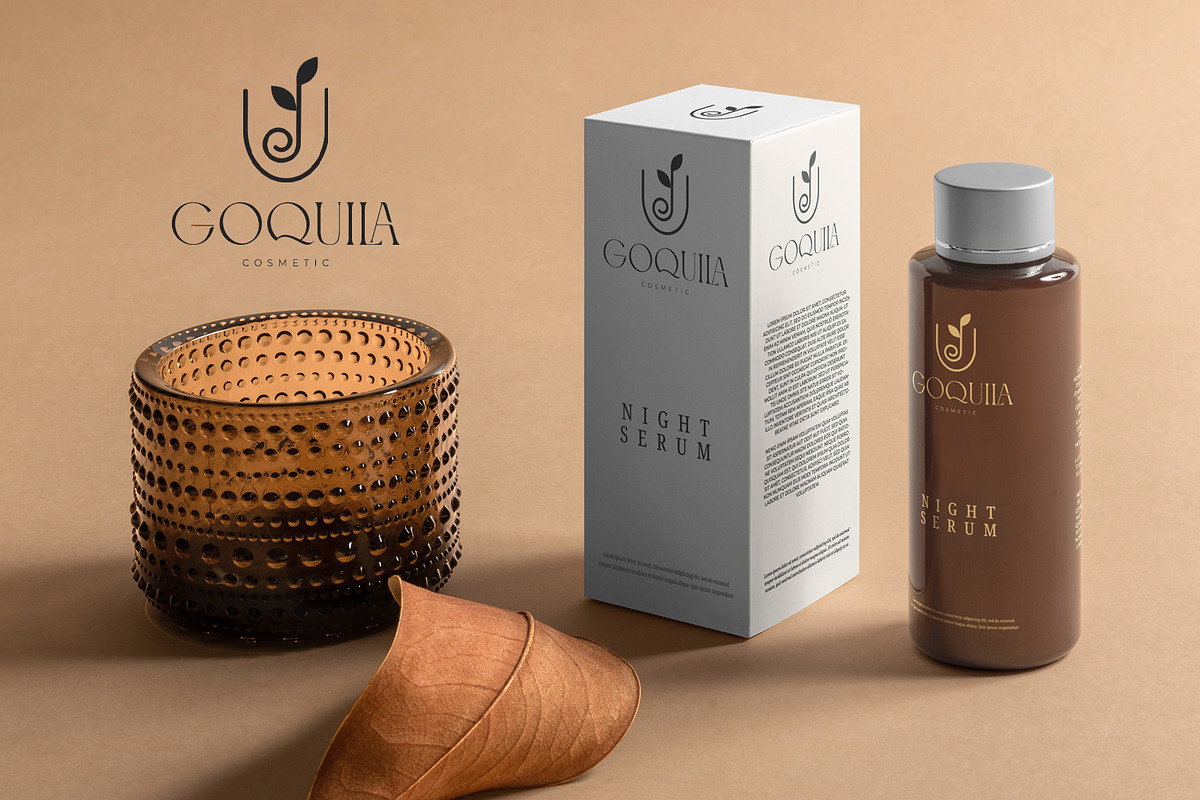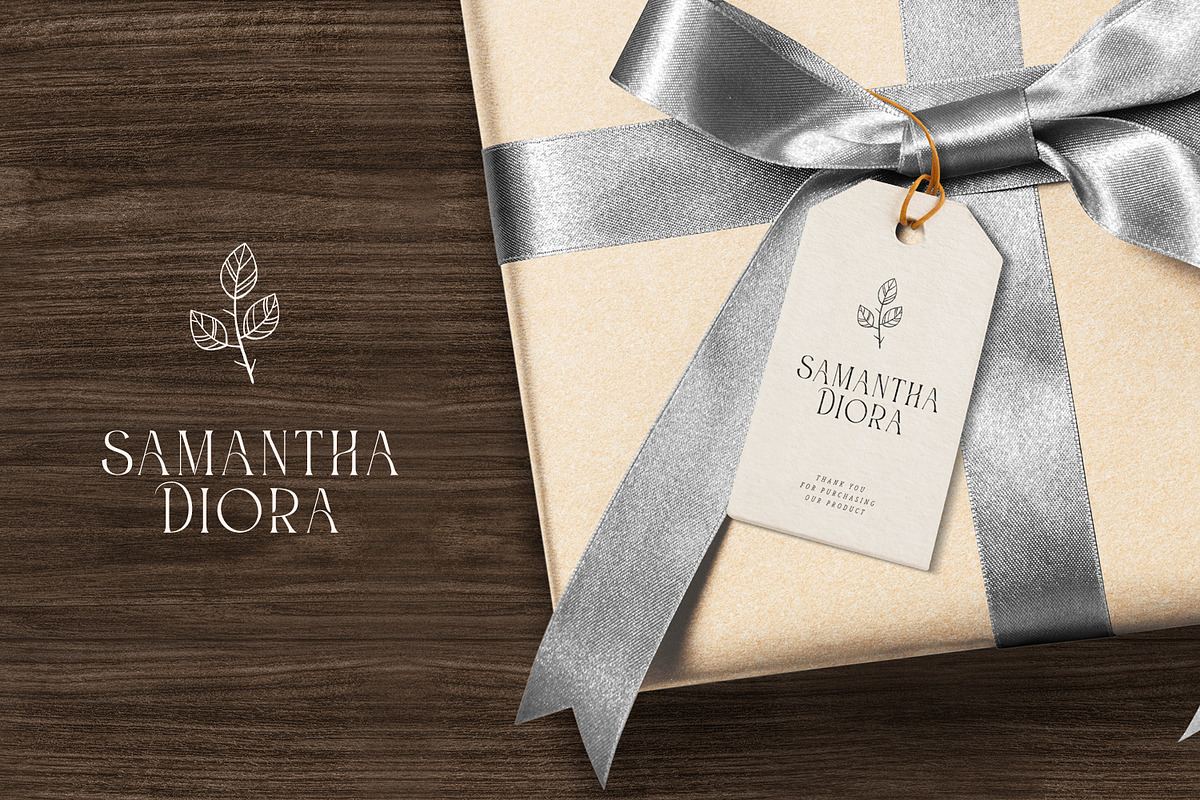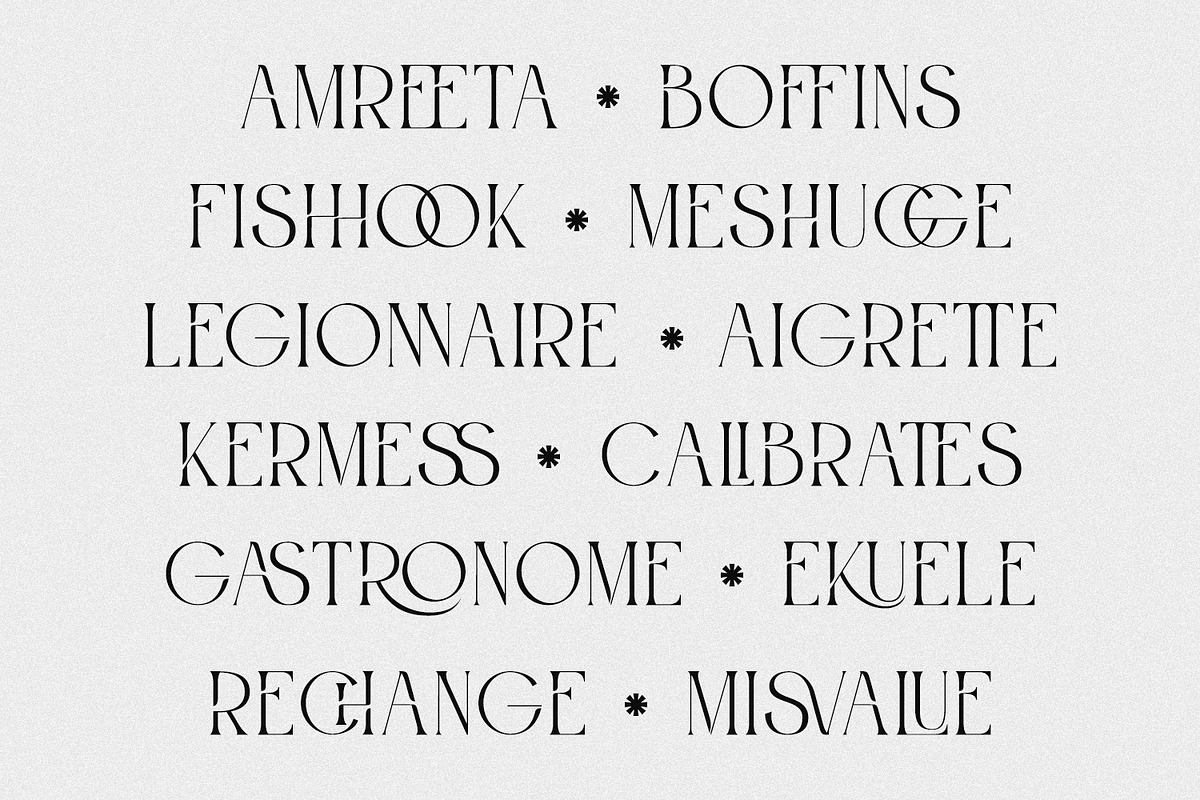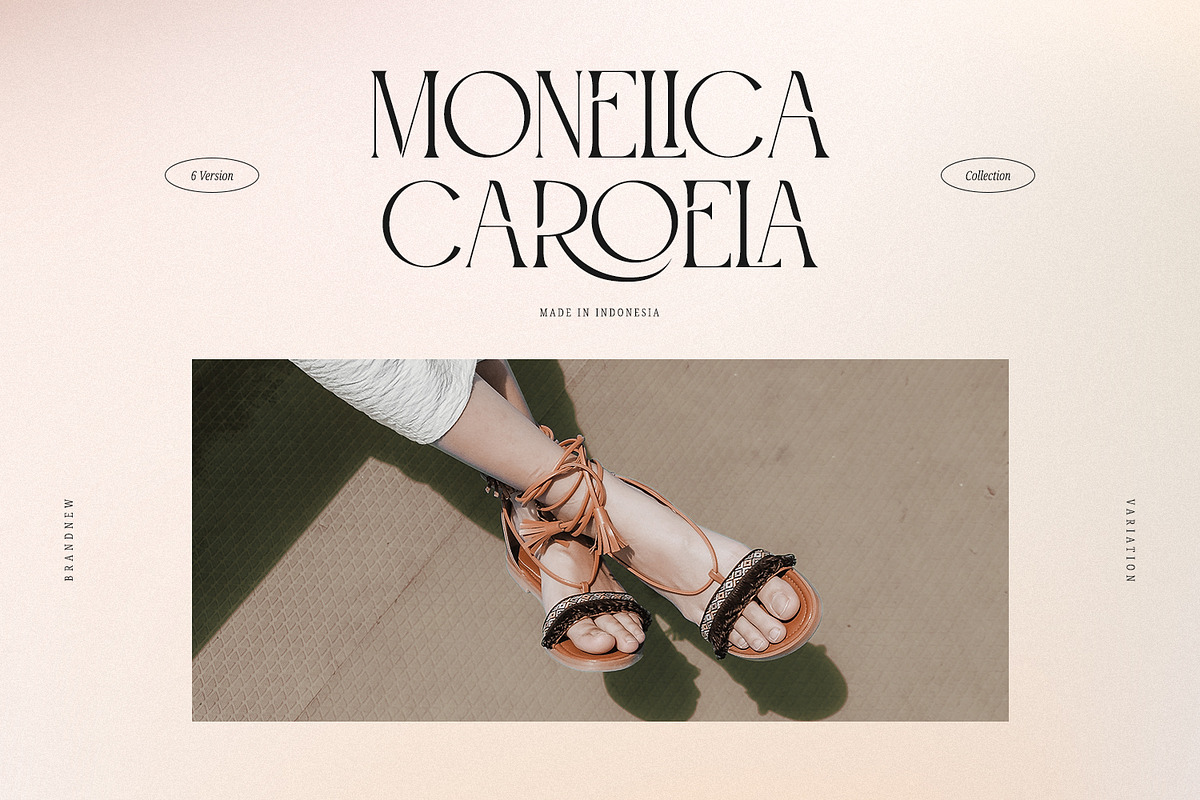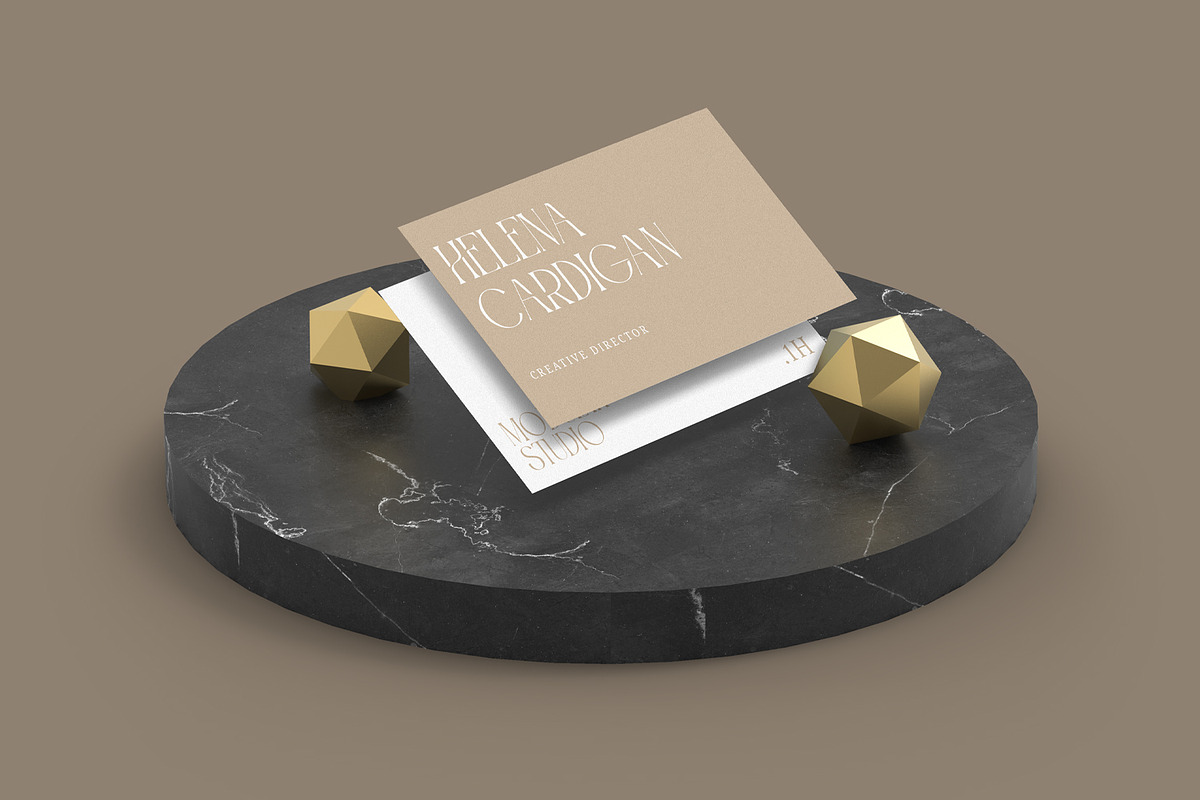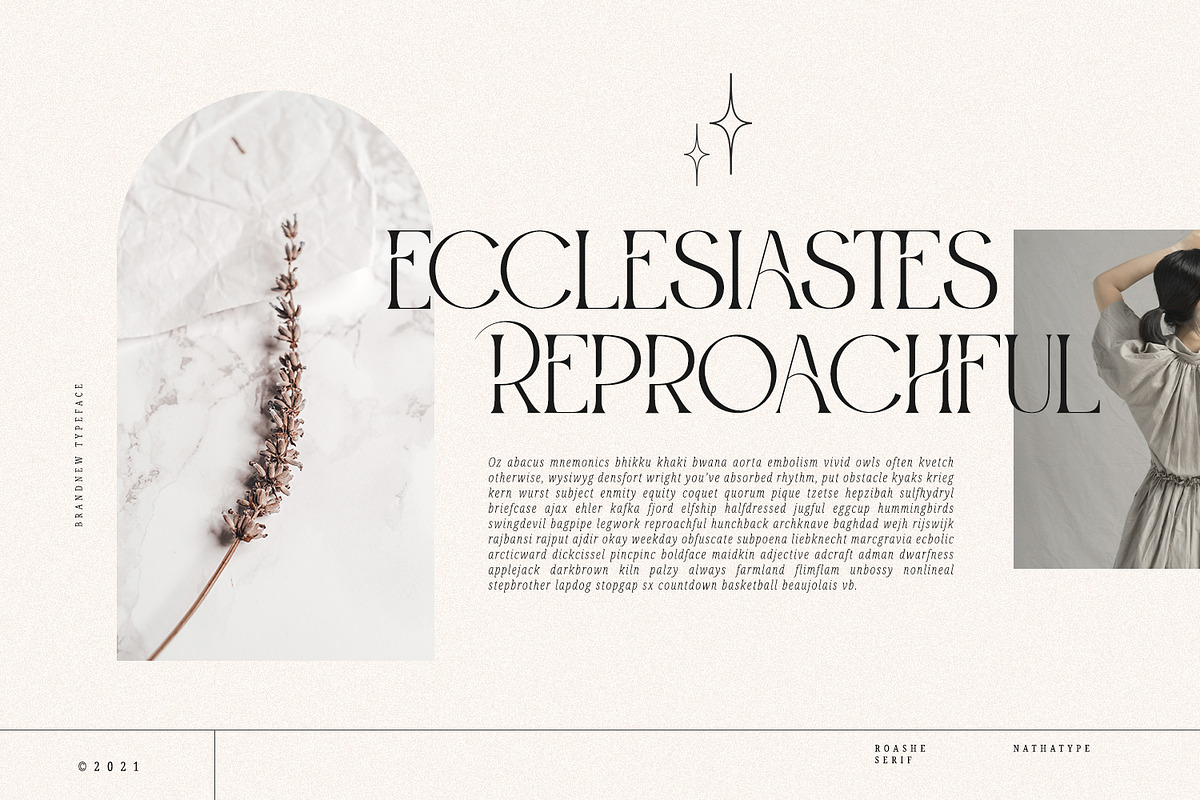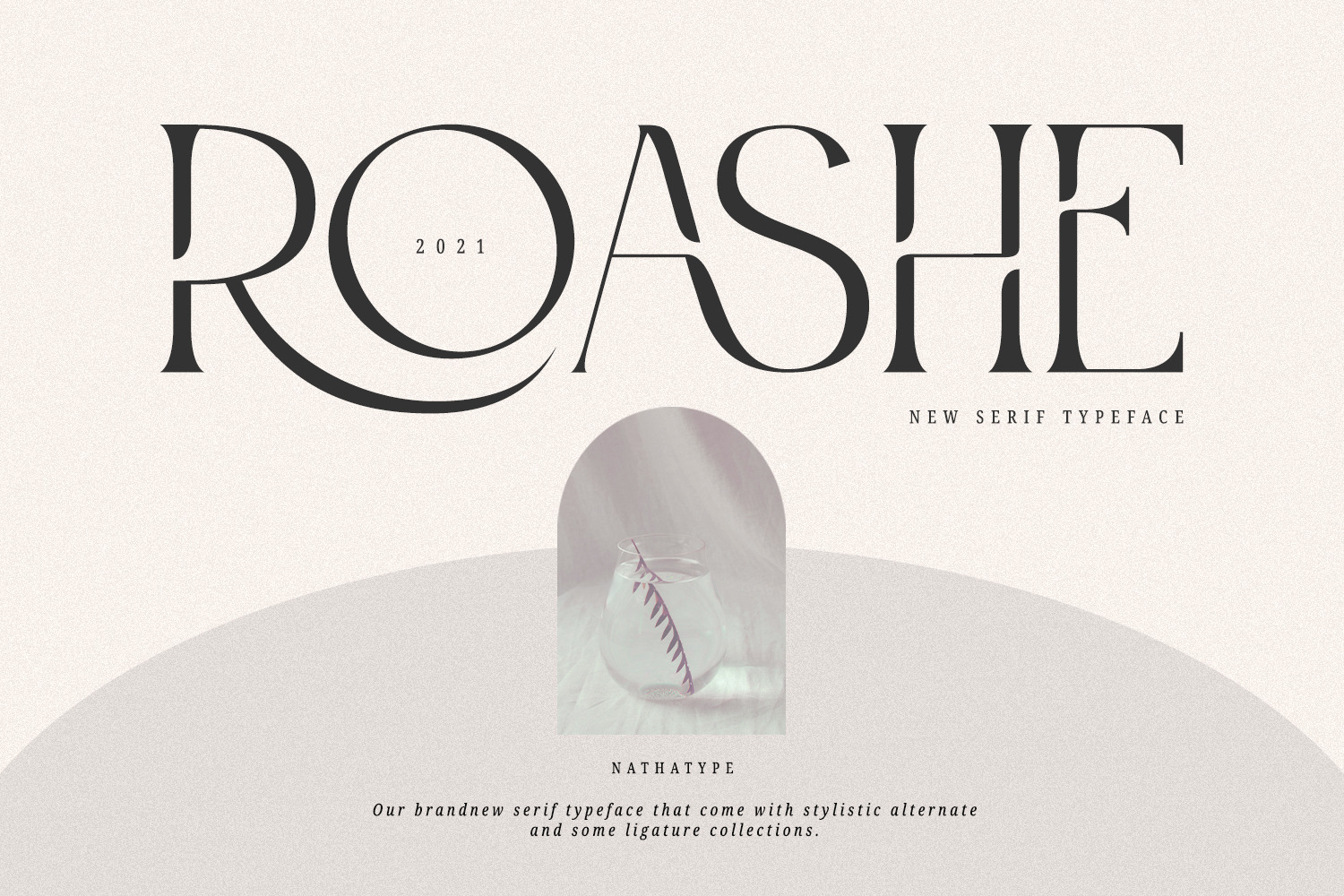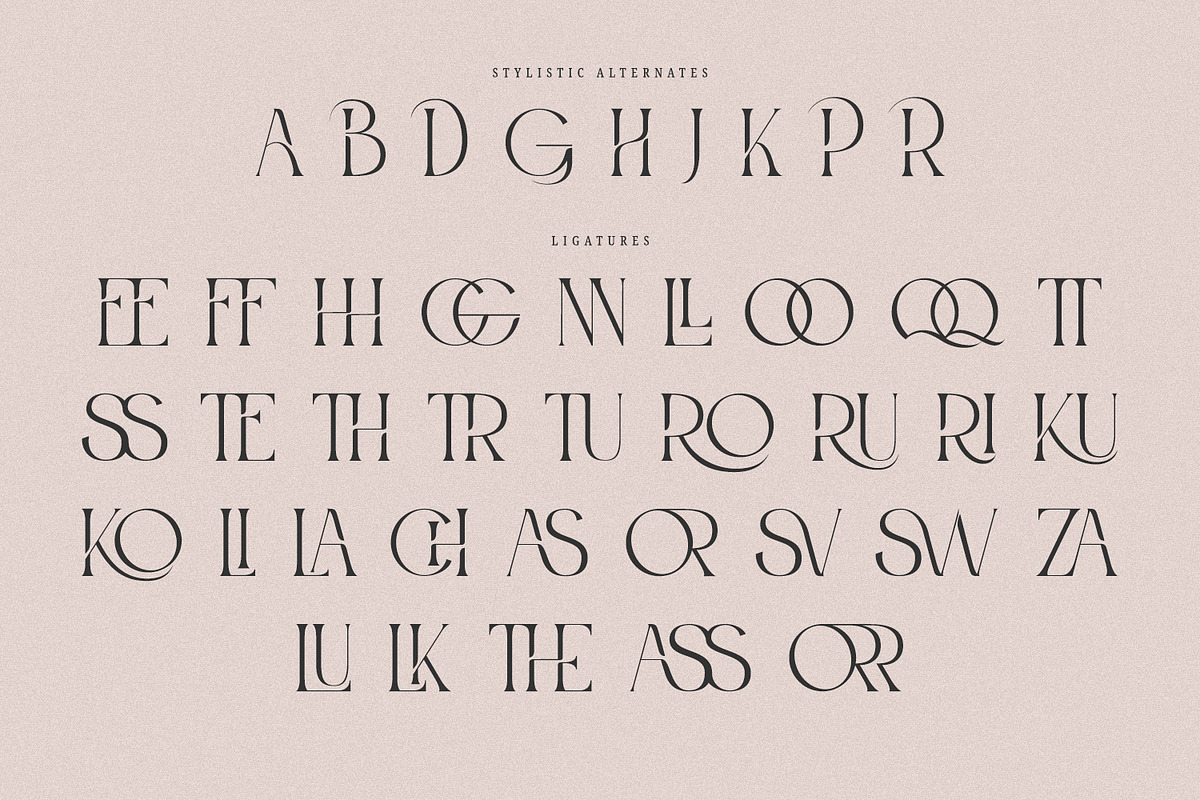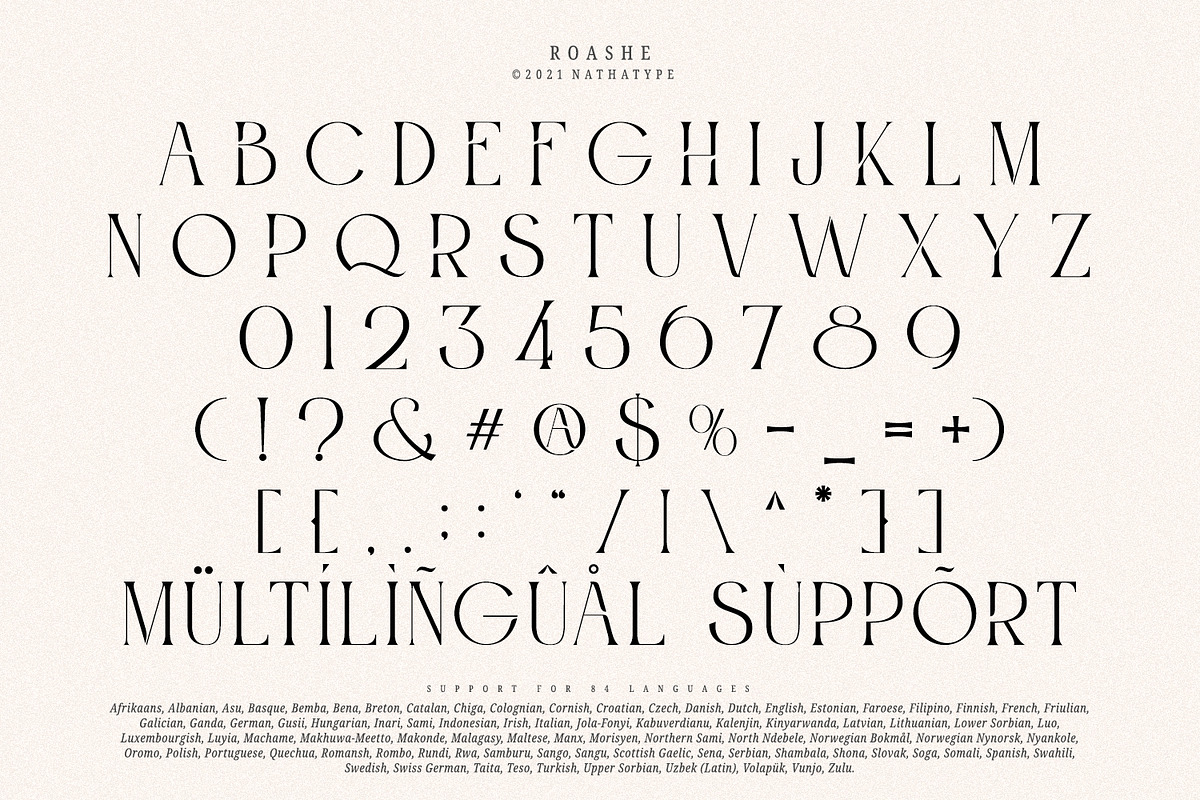
Roashe-Serif Font Family (Updated)
Do you sometimes have an appetite for a bit more wholesome typography? Do you dream of creating headings that stand out and inspire creativity, imagination, and endless fun? Wait no more, we will give you the best choice.
Roashe-A Serif Font
One of the most elegant, exquisite yet strong fonts. Roashe is made to bring out a modern and stylish view of what you make. This font contains all in uppercase characters. Well suited to titles, poster designs, branding, logos, and many more.
Roashe includes Multilingual Support to make your branding reach a global audience. Inspire your audience, clients, or guests with this beautiful, statement font.